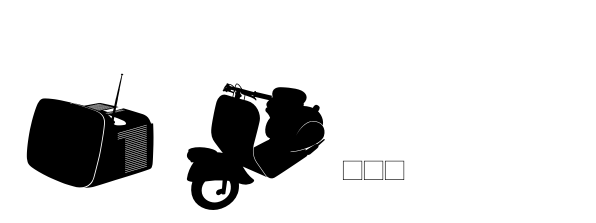
Design We Like
Die Schriftfamilie Design We Like wurde von entworfen und von studiocharlie veröffentlicht. Design We Like enthält 1 Stile.
Design We Like is a collection of objects: the objects that made history! All the objects are drawn very accurately.